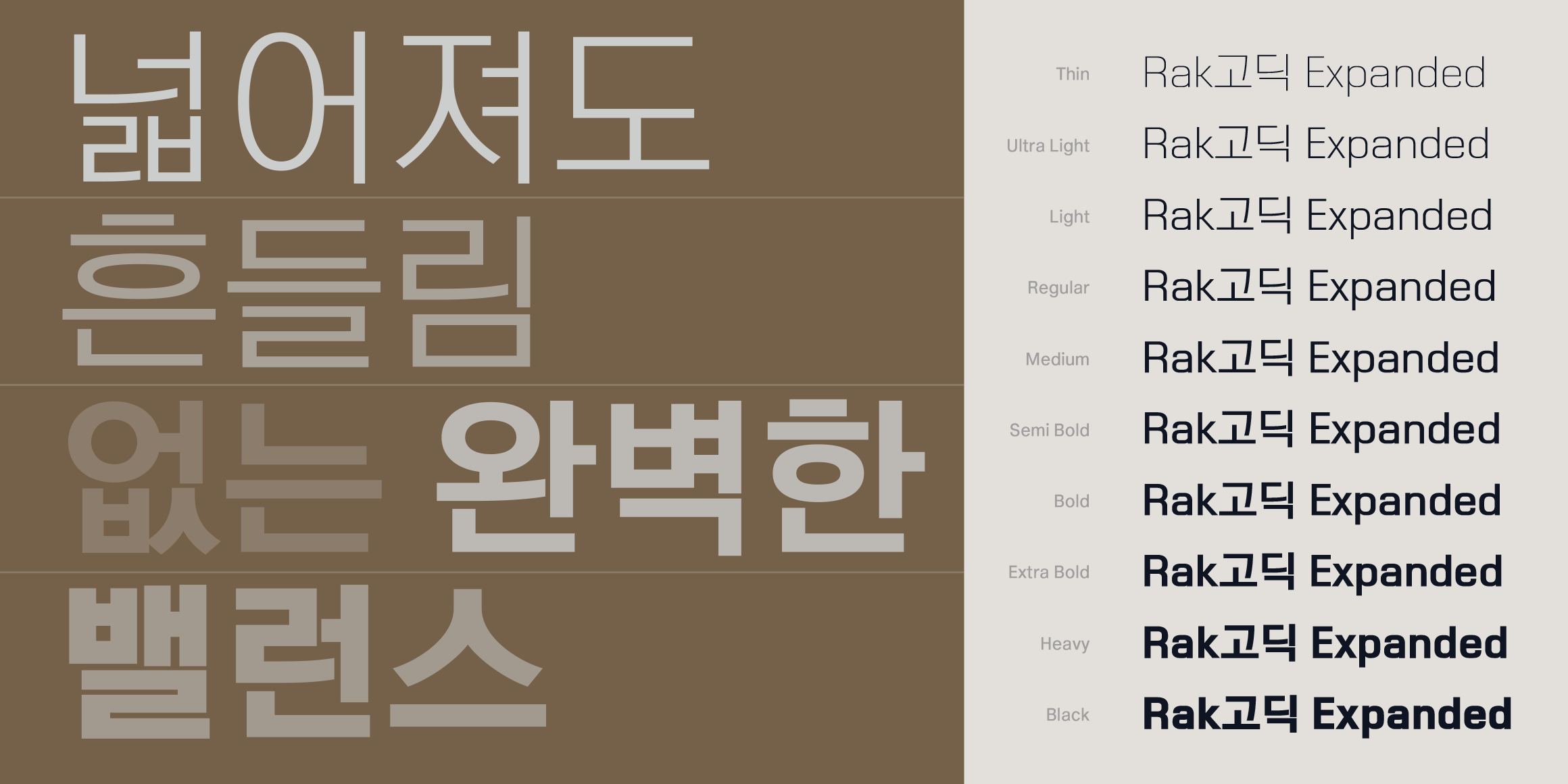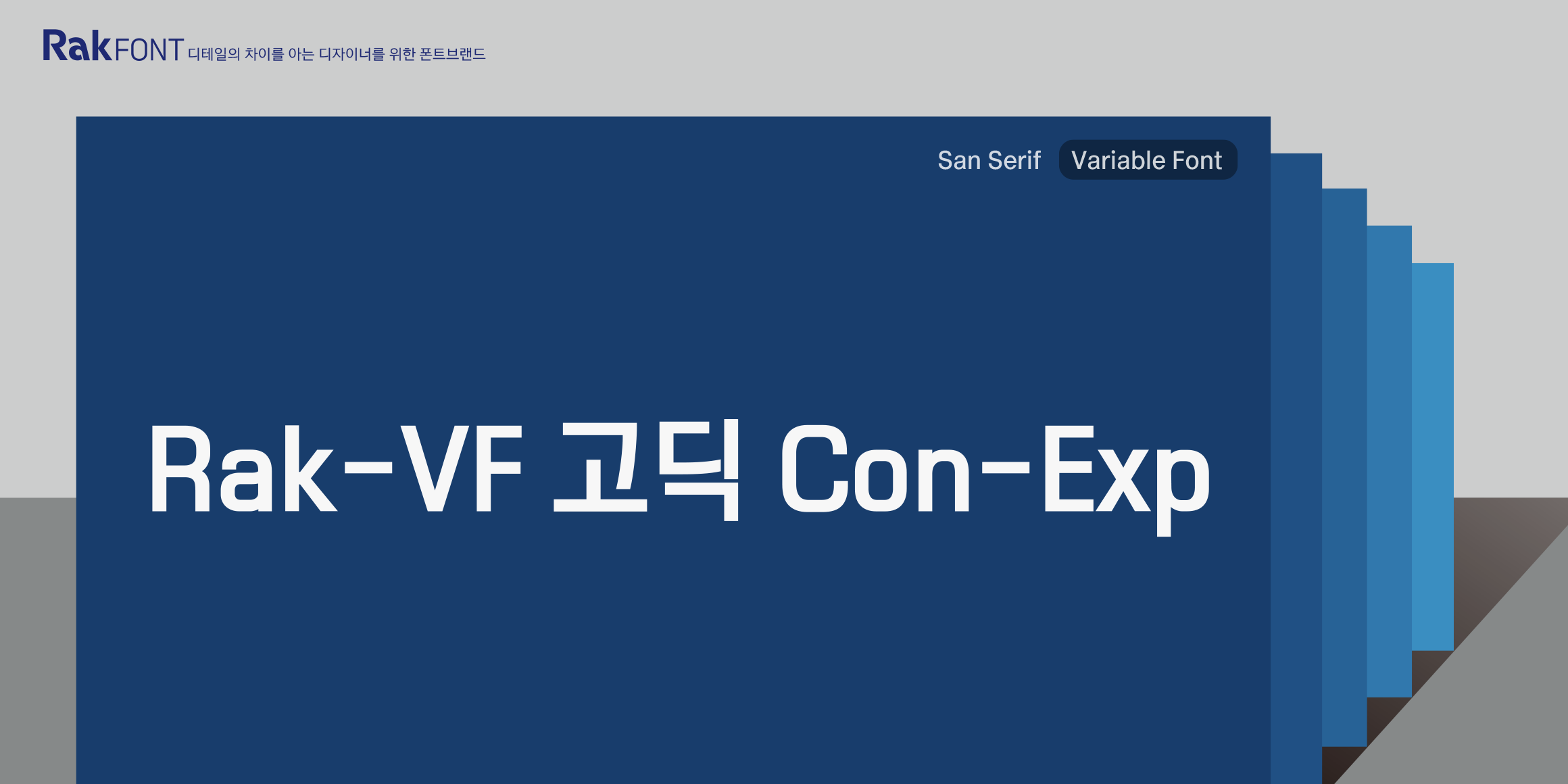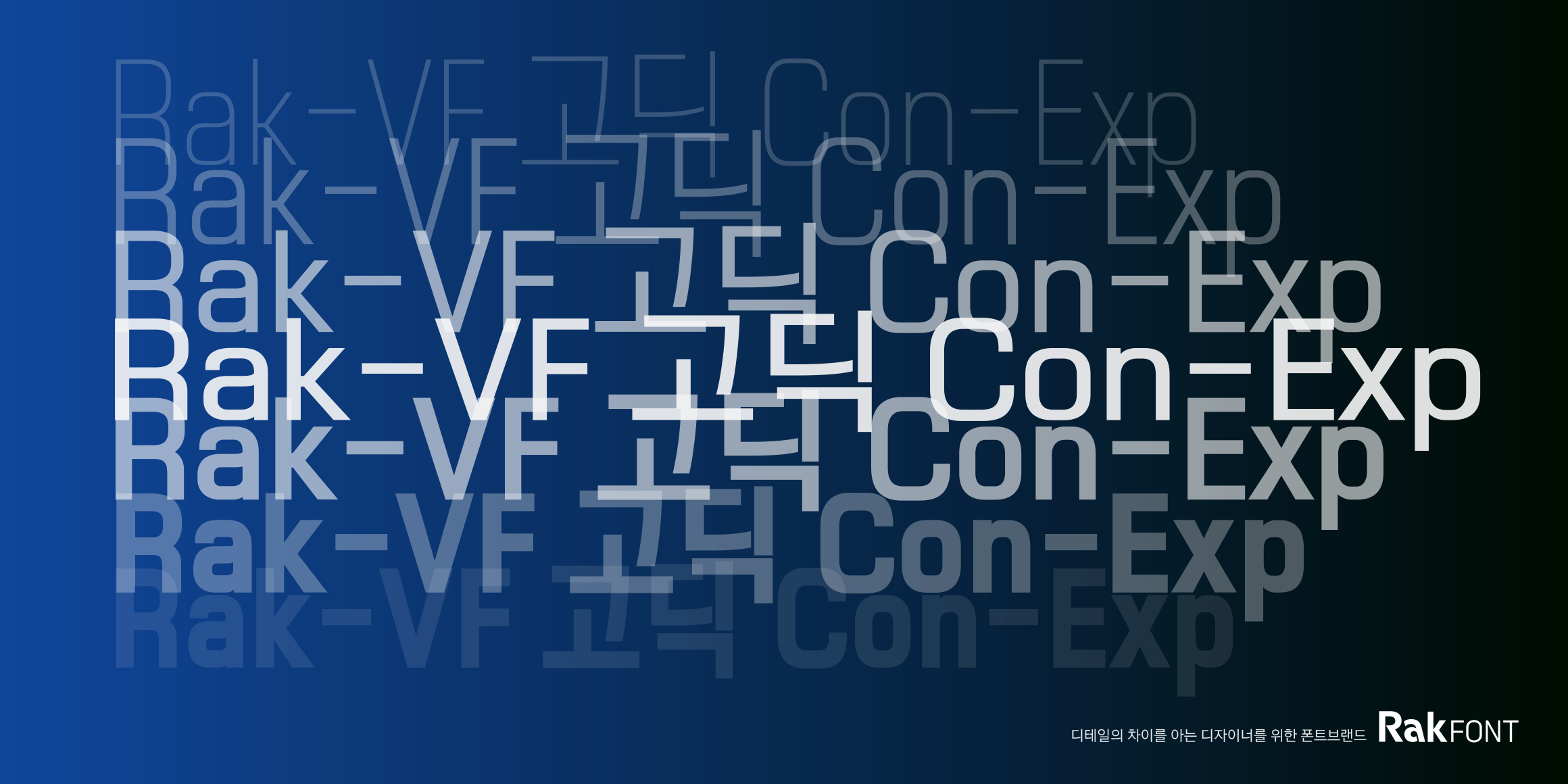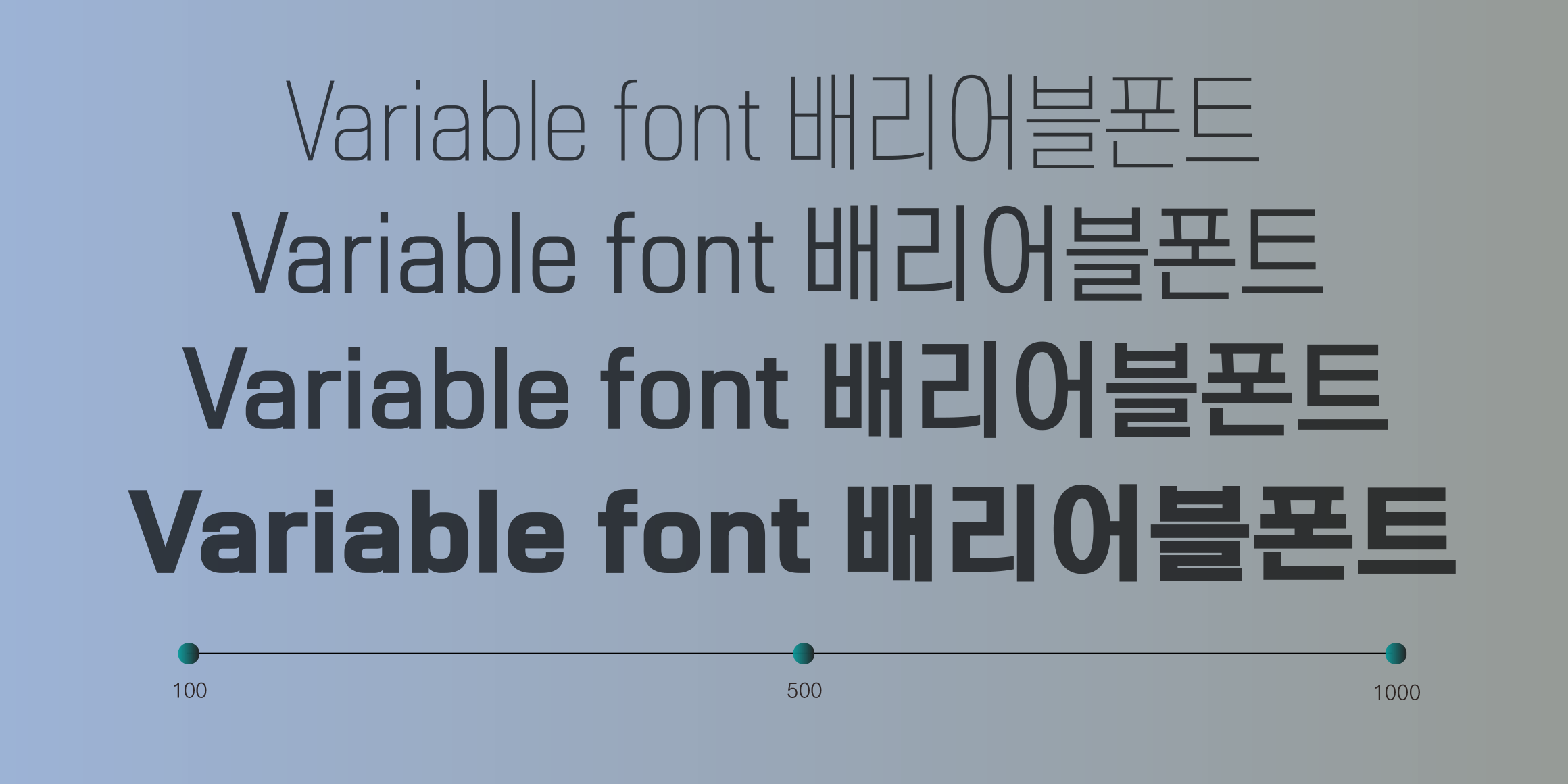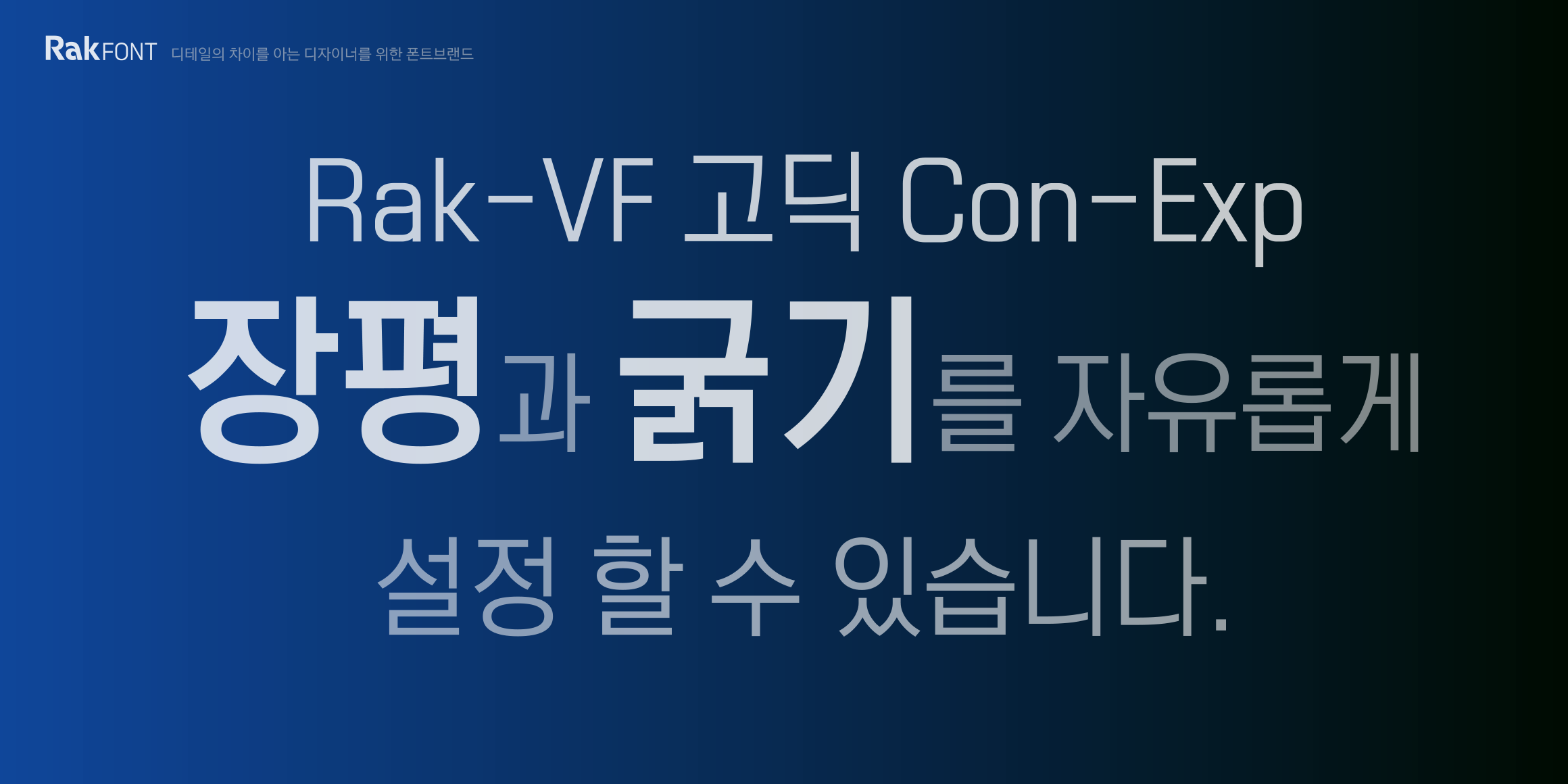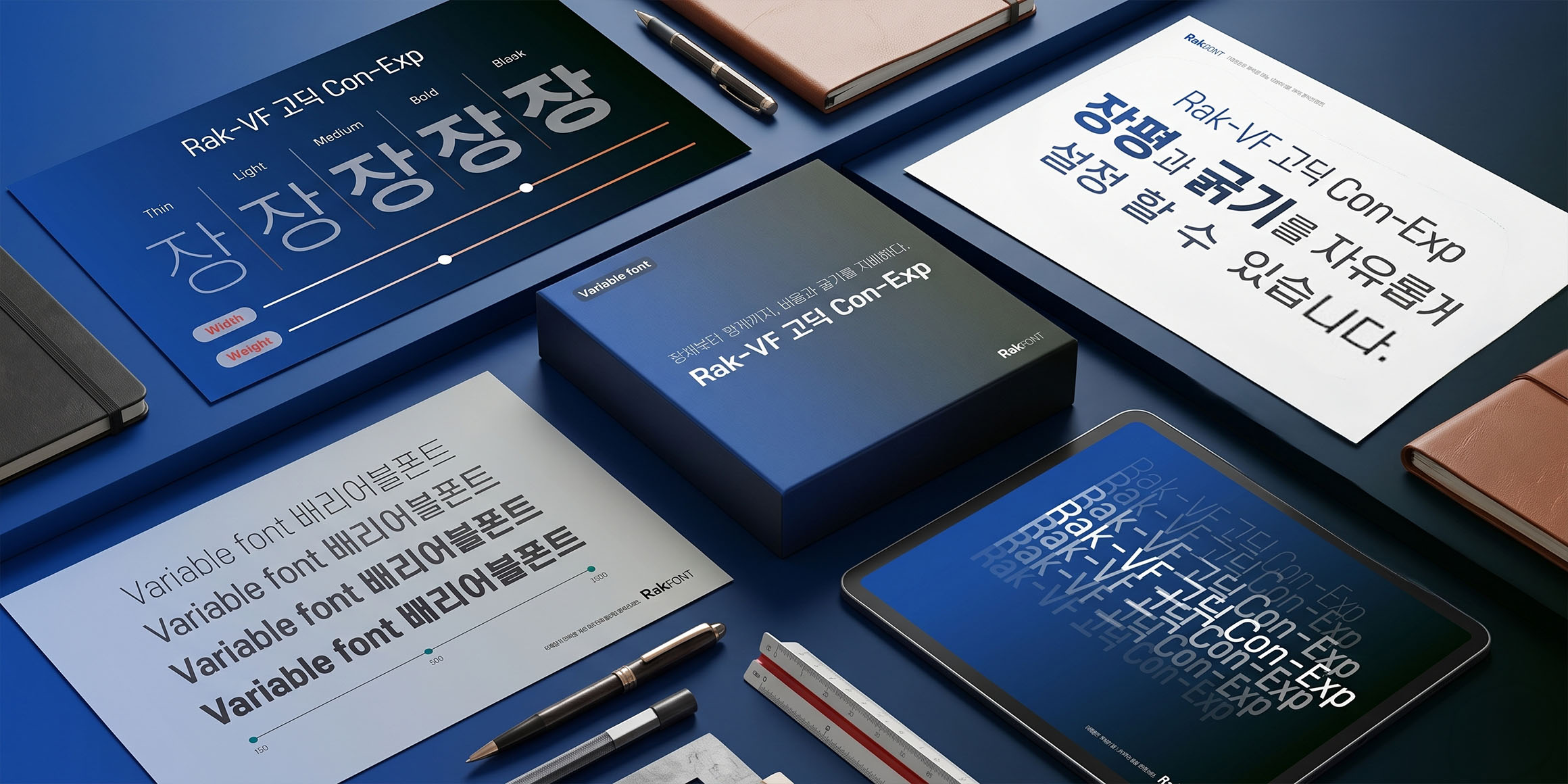
While maintaining the solid structural perfection of Rak Gothic, it allows for limitless customization of weight and width, ranging seamlessly from Condensed to Extended. It is the optimal variable typeface for professionals who perfect the quality of their work through the finest details.
- Park Yong-rak
- Rak-VF 고딕 Con-Exp / Rak-VF Go Con-Exp